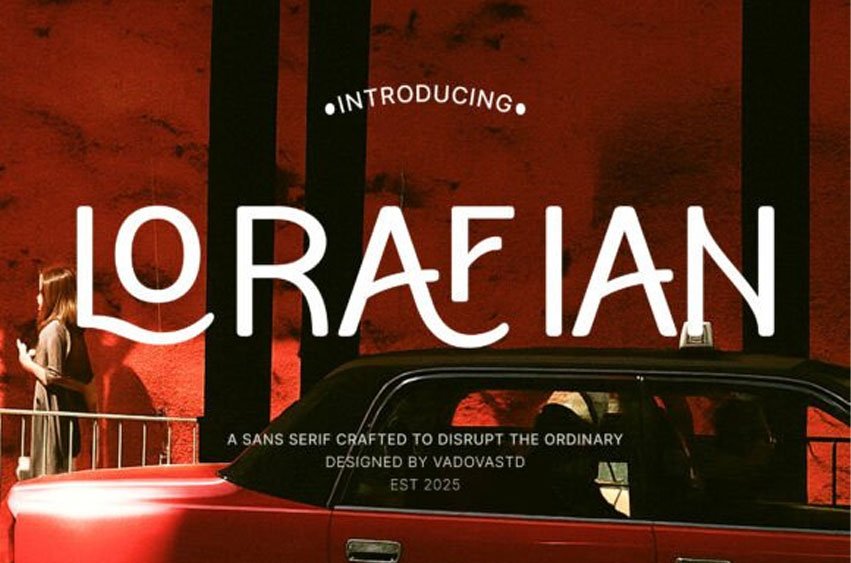
Lorafian Font
Lorafian Font Disrupt the ordinary with Lorafian, a high-concept sans-serif typeface that captures a “cinematic-and-rebellious” soul. This font features clean, geometric letterforms characterized by rhythmic, sweeping ligatures and unexpected baseline flourishes that challenge traditional typography.
With its bold structural presence and avant-garde energy, Lorafian is the premier choice for independent film posters, streetwear branding, modern editorial layouts, and high-impact “sleek-yet-provocative” social media headers.